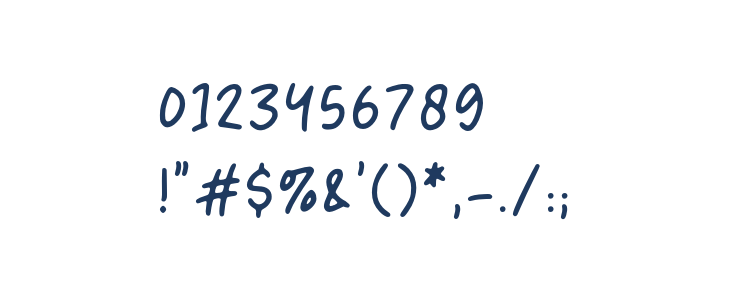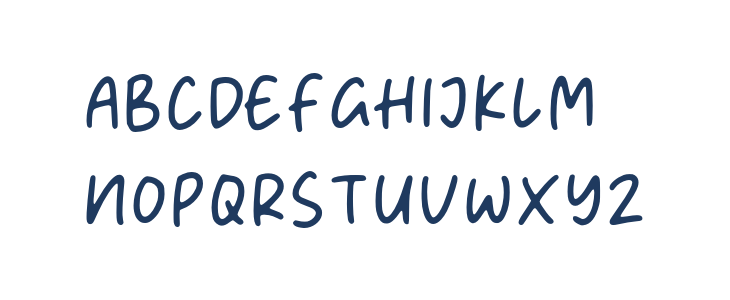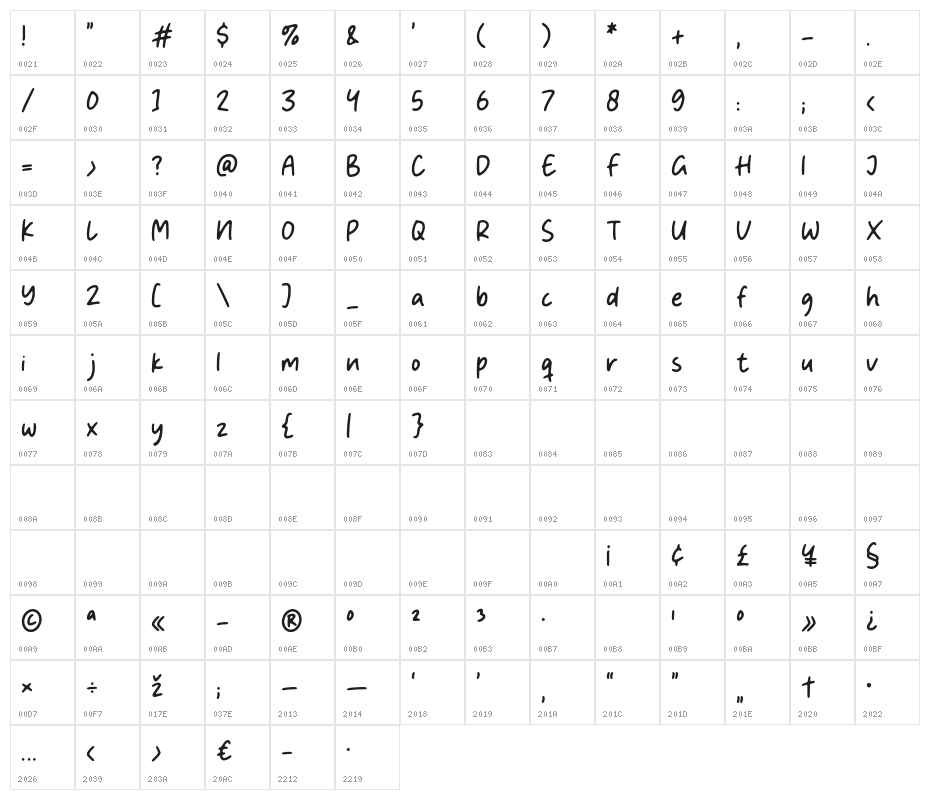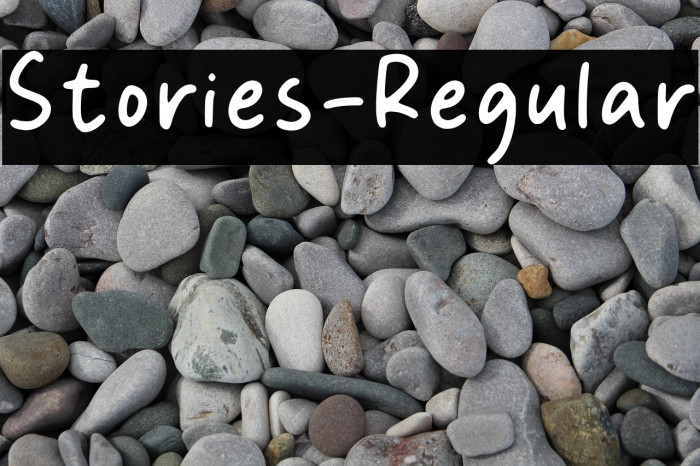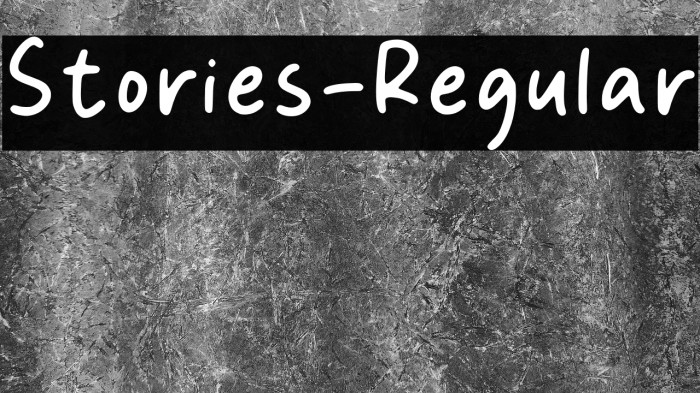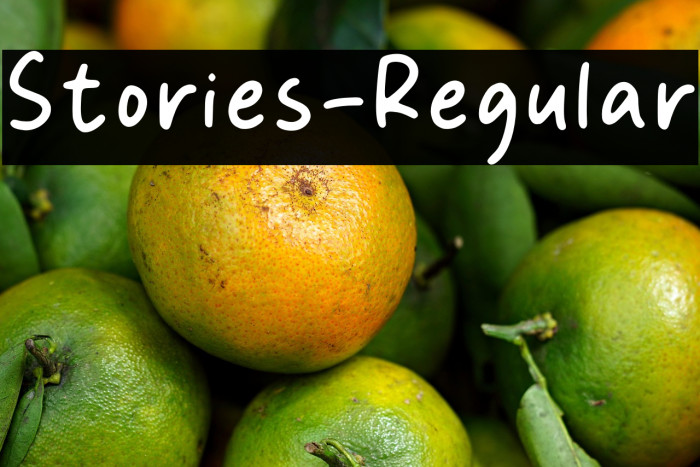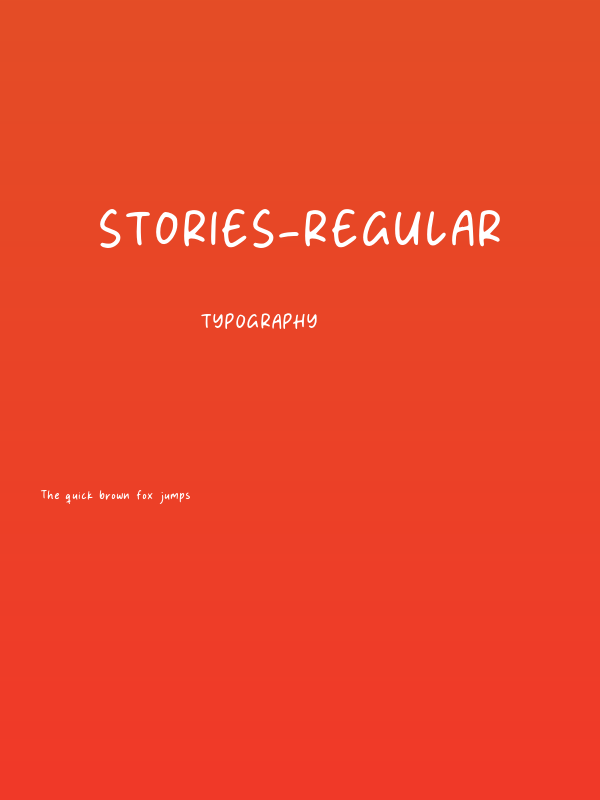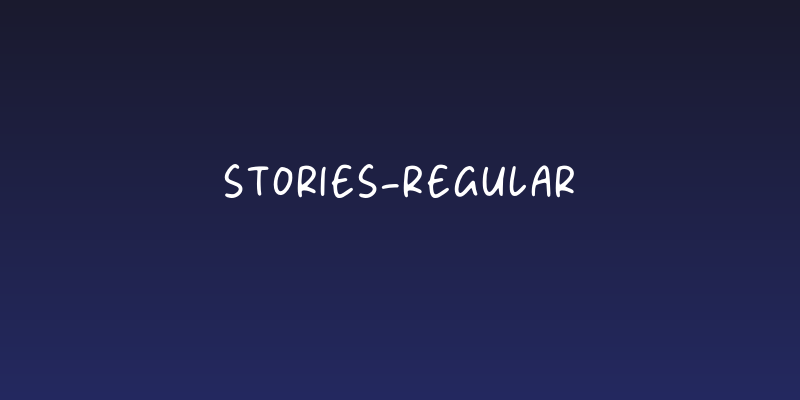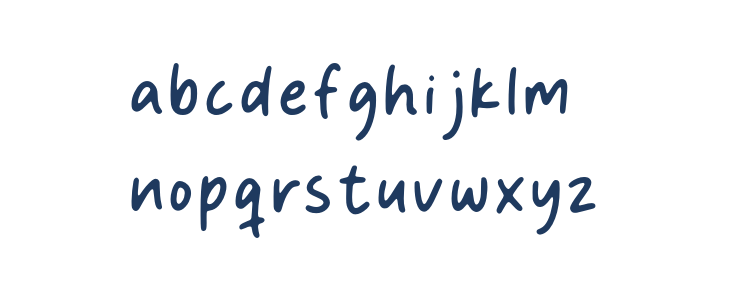
Stories-Regular Font
Stories-Regular Description
A playful, handwritten style font with rounded, irregular strokes and a casual, friendly appearance. The characters are slightly uneven, mimicking natural handwriting, and the overall look is informal and approachable.
| Overall Style | Casual, Playful, Handwritten |
| Use Case | Headlines, Short text, Informal communication |
| Proposed Projects | Children's books, greeting cards, informal branding, social media graphics, personal notes. |